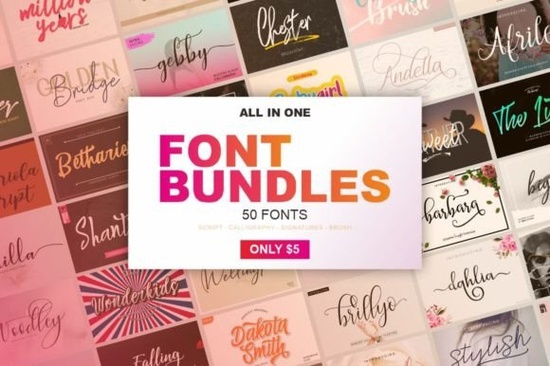
If you've been looking for a single font collection that covers a wide range of handwritten styles, the All in One Font Bundles Font from Creative Fabrica is worth a close look. It includes 50 handwritten fonts spanning scripts, calligraphy, signatures, and brush styles all in one download. For designers, small business owners, and crafters who need variety without buying dozens of separate fonts, this bundle offers a practical shortcut.
What's actually included in the All in One Font Bundles?
This collection brings together 50 distinct handwritten fonts. Each one has its own personality, from elegant flowing scripts to bold brush lettering. Here's a quick breakdown of what you'll find:
- Script fonts – smooth, connected letterforms ideal for invitations and branding. Styles like Bromello and Relationship are popular examples of this category.
- Calligraphy fonts – more formal, with varied stroke widths that mimic traditional pen work.
- Signature fonts – casual, natural-looking typefaces that resemble real handwriting.
- Brush fonts – textured, hand-painted styles that add energy to posters and social media posts.
The nice thing about having all these styles in one place is that you don't have to hunt for individual fonts when a project calls for a different mood. You already have everything from delicate scripts to expressive brush lettering at your fingertips. If you're specifically interested in script-style options within this collection, there's plenty to work with.
Who is this font bundle best suited for?
Not every font bundle fits every workflow, so let's be honest about who will get the most out of this one.
Print-on-demand sellers often need fresh typography for t-shirt designs, mugs, and tote bags. Having 50 handwritten fonts means you can rotate styles across product lines without repeating yourself. A design that works on a coffee mug might need a completely different font for a wedding invitation, and this bundle handles both.
Small business owners creating their own marketing materials menus, flyers, social media graphics will find plenty of options here. Instead of settling for whatever free fonts are available, you get a curated set of handwritten styles that look polished and intentional.
Crafters and hobbyists working with cutting machines, scrapbooking, or digital planners also benefit. Handwritten fonts add a personal touch that standard sans-serifs just can't match. Fonts in the style of Marney Holland are a good example they bring warmth and personality to handmade projects.
Graphic designers working on client projects will appreciate the variety. Having a broad font library on hand means fewer last-minute purchases when a client wants "something that feels handwritten."
How do these fonts compare to individual font purchases?
If you're curious about other script fonts on Creative Fabrica, styles like Bromello's flowing script and the Relationship font's elegant curves are popular choices that show the quality you can expect.
Are there any limitations to keep in mind?
Is the All in One Font Bundles worth downloading?